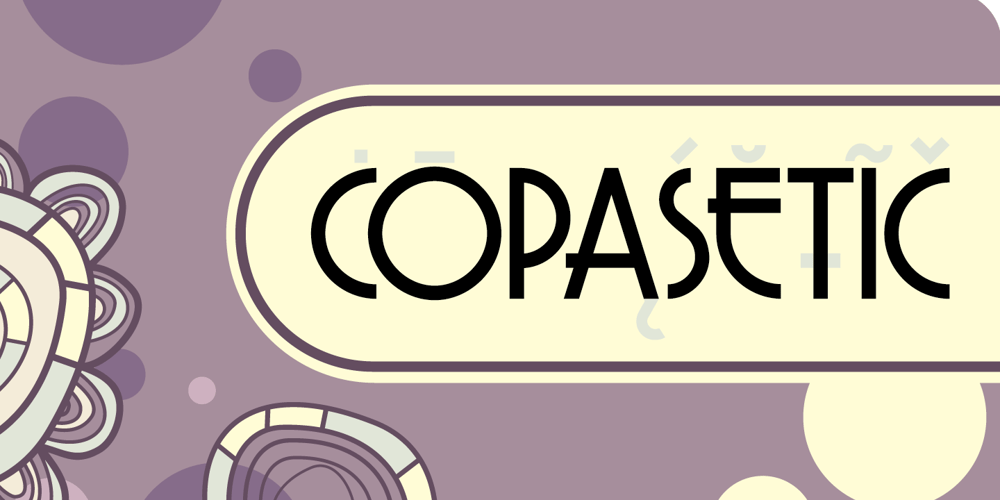
Copasetic NF Pro Font Family was designed by Nick Curtis, Roger S. Nelsson and published by CheapProFonts. Copasetic NF Pro contains 1 styles and family package options. Another typical Art Deco font from Nick Curtis. Uppercase only, but with alternate letterforms in the lowercase positions. I have completely redesigned all the diacritics (which were way too flimsy for this robust design) before expanding the character set in the usual fashion. Nick Curtis says: “Back in the Olden Days of Graphic Design B.C. (before computers), type freaks used to wait in anxious anticipation for each new release of the Letraset catalog. The inspiration for this font, Premiere Lightline, was one such release, and probably help spur my interest in Deco designs. The original font was VERY light indeed, suitable only for use in large sizes. My version is beefier, and includes an entire lower case of alternate letterforms, making this (at least) two fonts in one. The name is the 40’s hep talk equivalent of “Cool!””. ALL fonts from CheapProFonts have very extensive language support: They contain some unusual diacritic letters (some of which are contained in the Latin Extended-B Unicode block) supporting: Cornish, Filipino (Tagalog), Guarani, Luxembourgian, Malagasy, Romanian, Ulithian and Welsh. They also contain all glyphs in the Latin Extended-A Unicode block (which among others cover the Central European and Baltic areas) supporting: Afrikaans, Belarusian (Lacinka), Bosnian, Catalan, Chichewa, Croatian, Czech, Dutch, Esperanto, Greenlandic, Hungarian, Kashubian, Kurdish (Kurmanji), Latvian, Lithuanian, Maltese, Maori, Polish, Saami (Inari), Saami (North), Serbian (latin), Slovak(ian), Slovene, Sorbian (Lower), Sorbian (Upper), Turkish and Turkmen. And they of course contain all the usual “western” glyphs supporting: Albanian, Basque, Breton, Chamorro, Danish, Estonian, Faroese, Finnish, French, Frisian, Galican, German, Icelandic, Indonesian, Irish (Gaelic), Italian, Northern Sotho, Norwegian, Occitan, Portuguese, Rhaeto-Romance, Sami (Lule), Sami (South), Scots (Gaelic), Spanish, Swedish, Tswana, Walloon and Yapese.